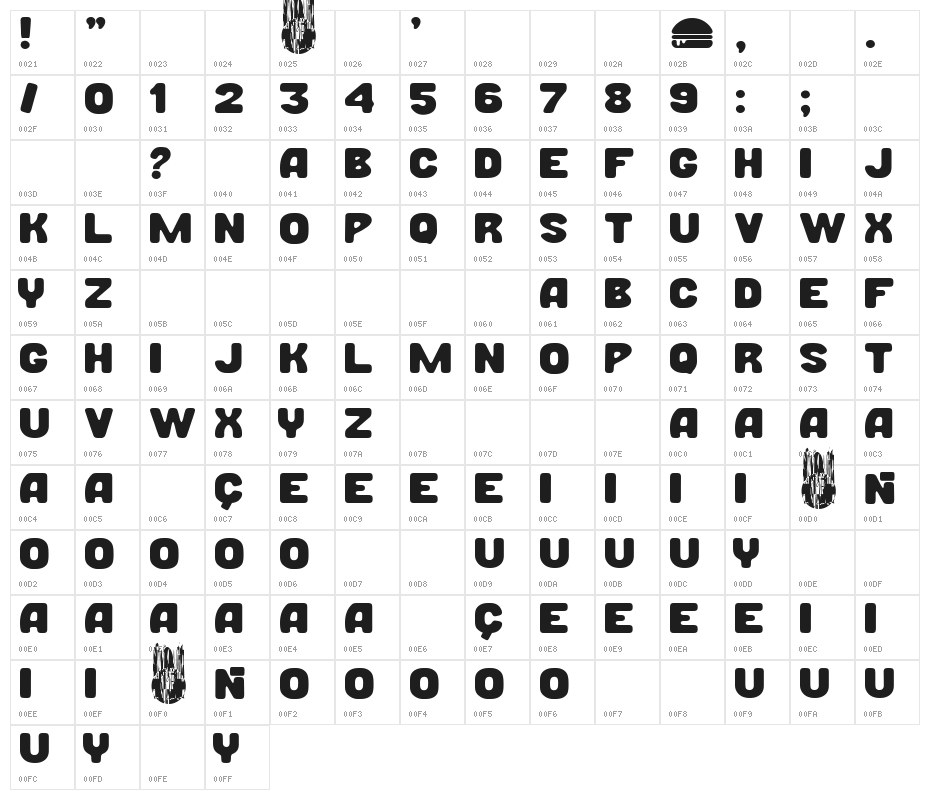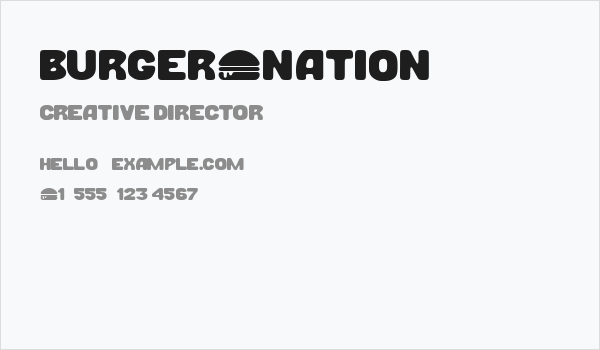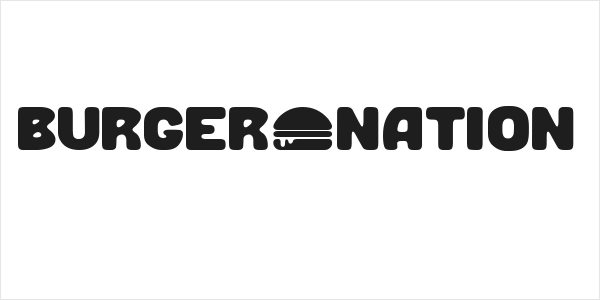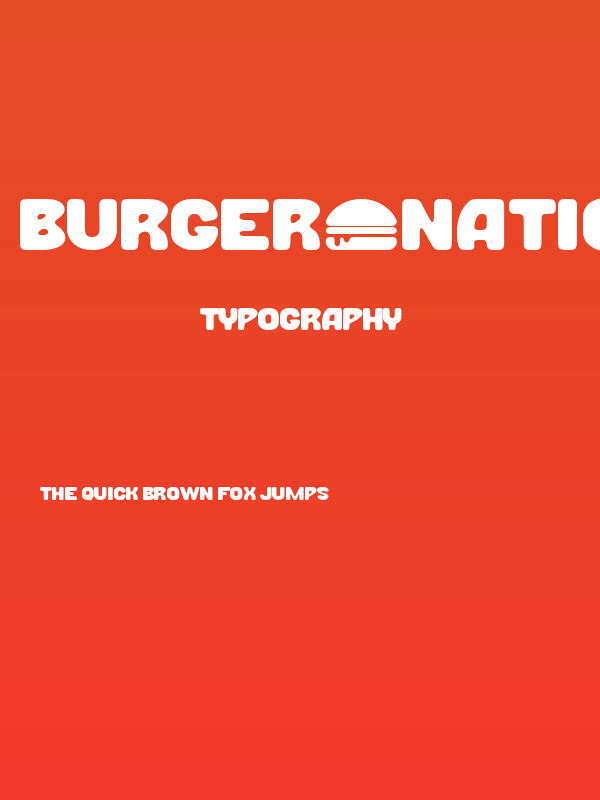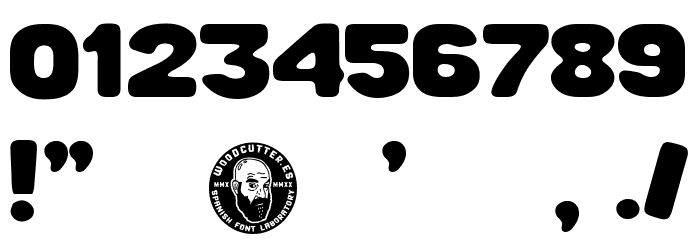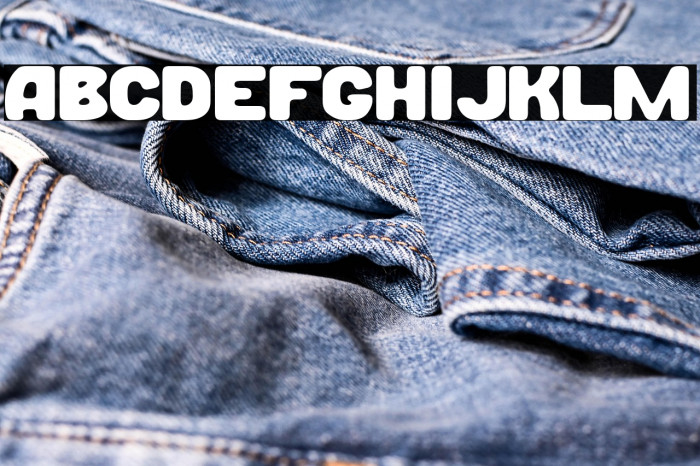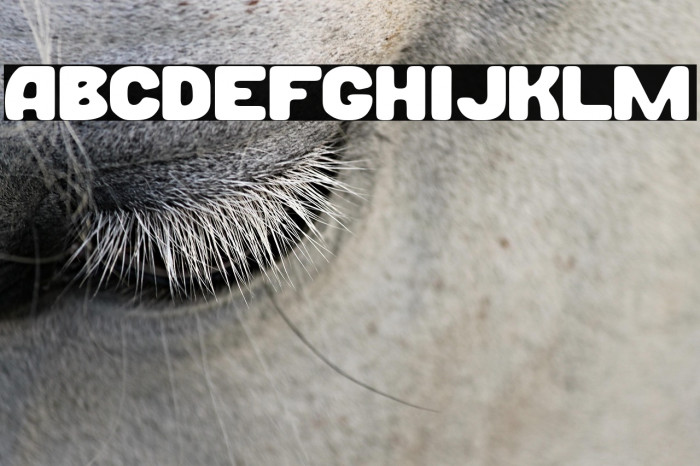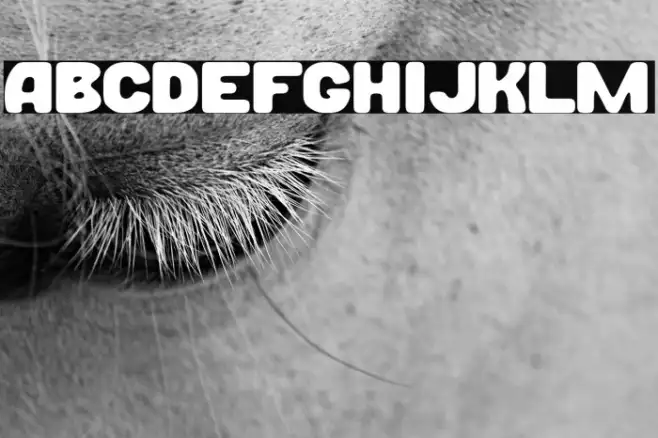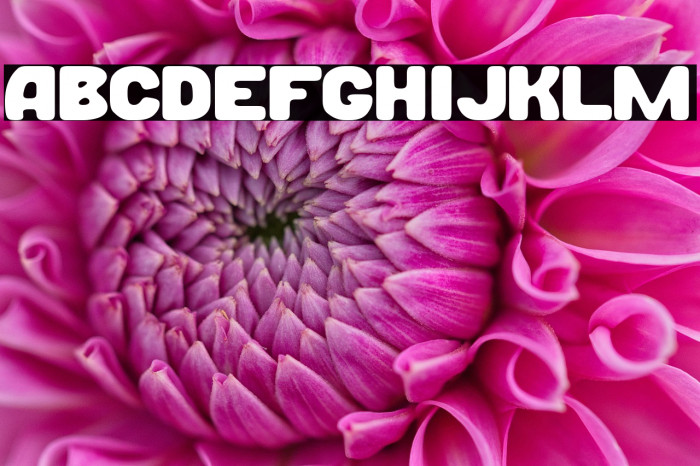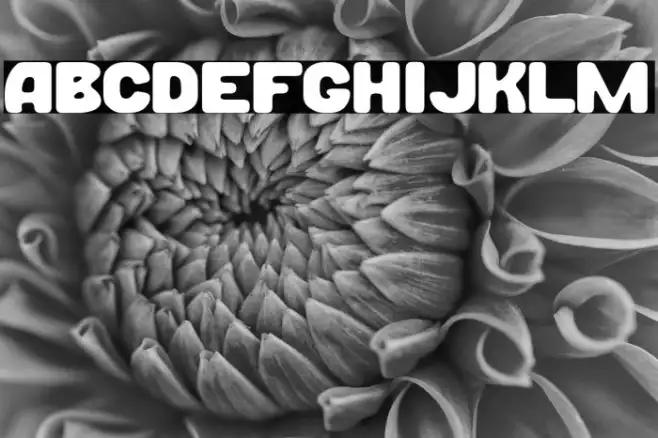
Burger+Nation Font
Burger+Nation Description
This font features bold, rounded characters with a playful and friendly appearance. The letters are uniformly thick, giving them a strong presence, while the rounded edges soften the overall look, making it approachable and fun. The numbers and special characters maintain this consistency, ensuring a cohesive style throughout. The font's design is reminiscent of retro or vintage styles, yet it maintains a modern appeal due to its clean lines and simplicity. It's particularly suitable for projects that require a bold statement or a touch of whimsy.
| Overall Style | Modern, Vintage |
| Proposed Projects | Ideal for branding, logos, children's books, posters, and any project needing a fun, bold statement. |